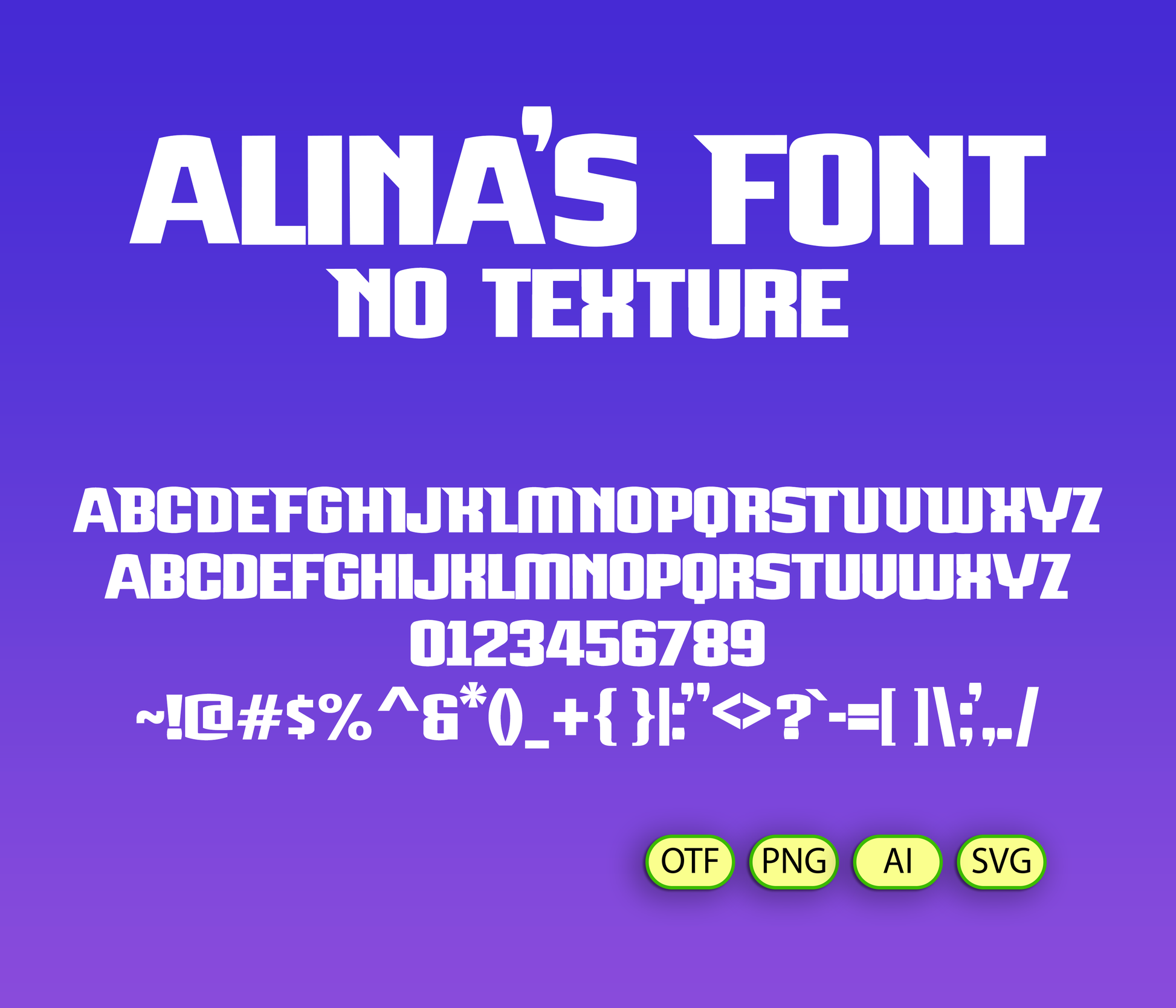
The Villainous Alliance Font
Genius Nemesis: The Villainous Alliance Font
Dive into the dynamic world of a brilliant but misunderstood anti-hero with The Villainous Alliance font, perfect for fans and designers looking to infuse their projects with a touch of superhero flair. Inspired by an animated film's distinctive style, this font captures the essence of both heroism and mischief, making it ideal for a wide range of creative endeavors. Sharp, clean lines characterize the Genius Nemesis font, mirroring the animated energy of a movie about an unlikely hero. It's designed to be versatile, with a full set of characters that make it suitable for everything from promotional materials to personal projects.
Application and Customization
Enhance event invitations, create striking merchandise, and boost your digital media presence with this distinctive font that captures the essence of a world where the lines between hero and villain blur.
The Genius Nemesis: The Villainous Alliance font brings the excitement and flair of an animated superhero movie into any creative project, making it a go-to choice for designers looking to channel a playful, yet dramatic superhero vibe. Whether you're designing for a comic book convention, creating visuals for a science-themed event, or just adding some animated excitement to your designs, this font offers the perfect blend of intelligence and adventure.